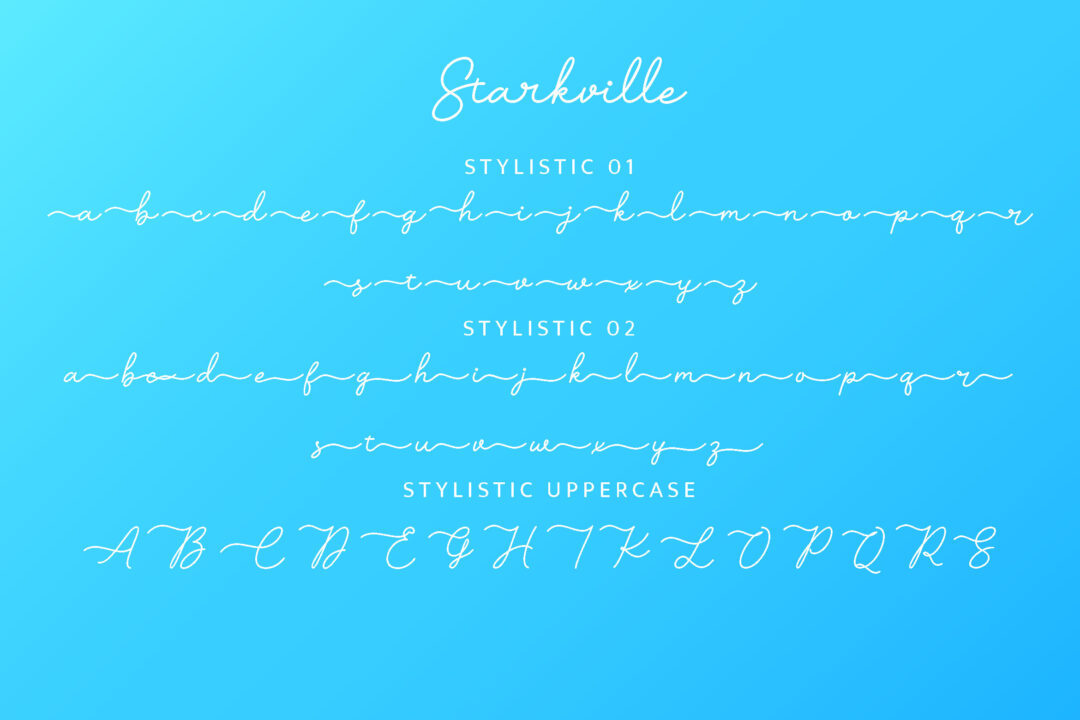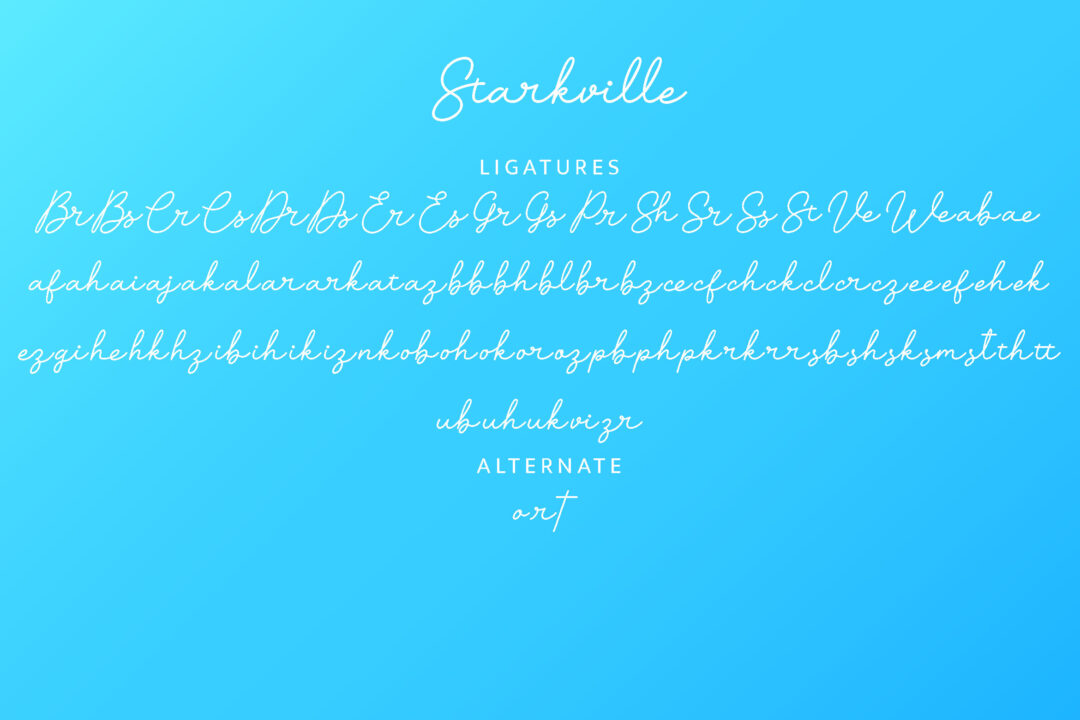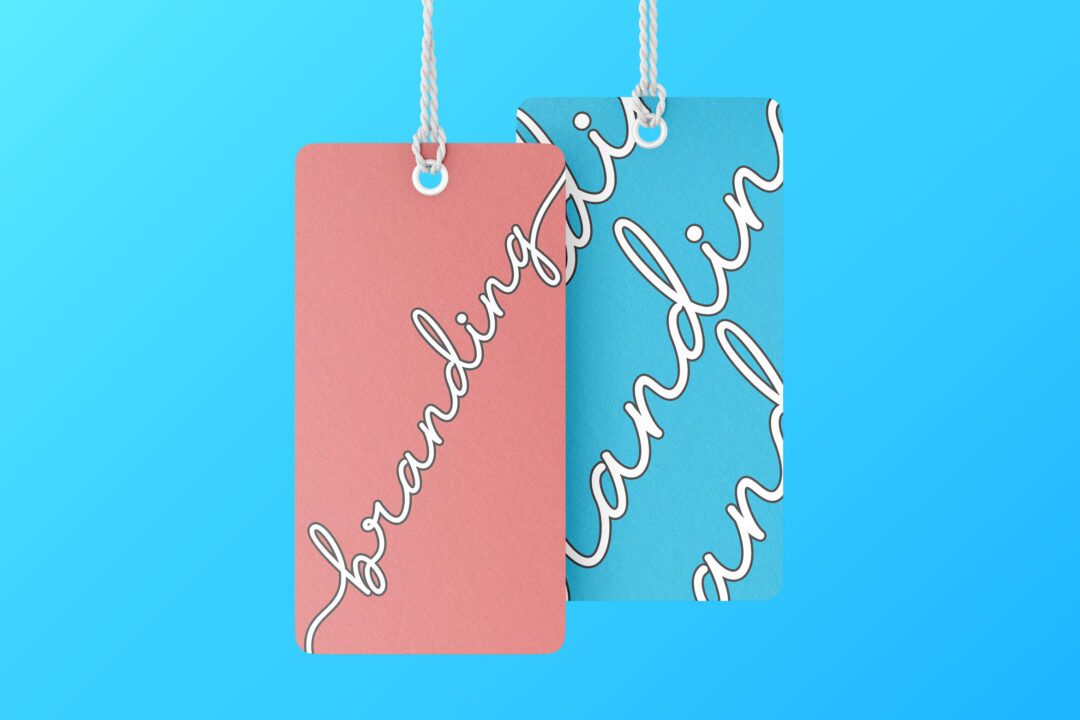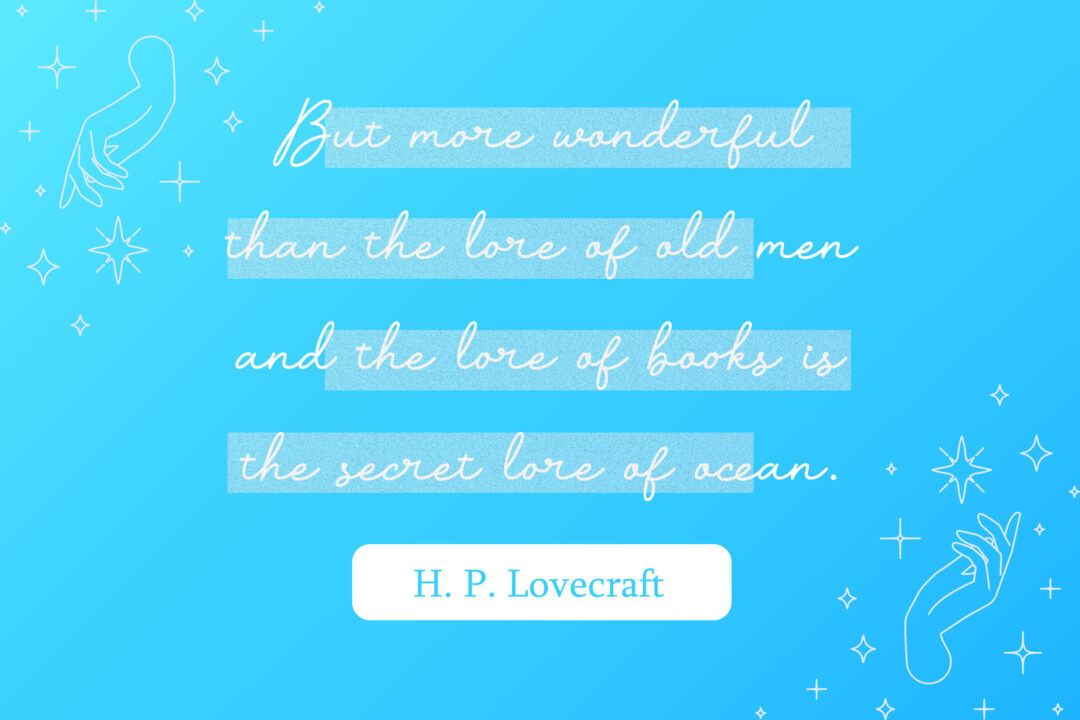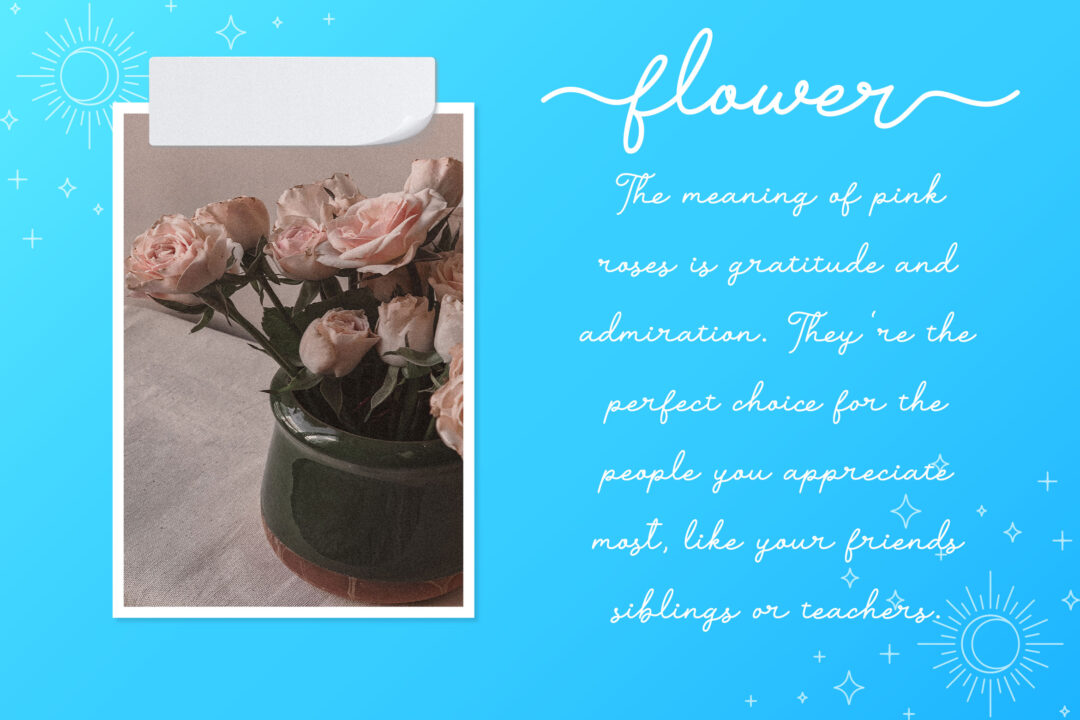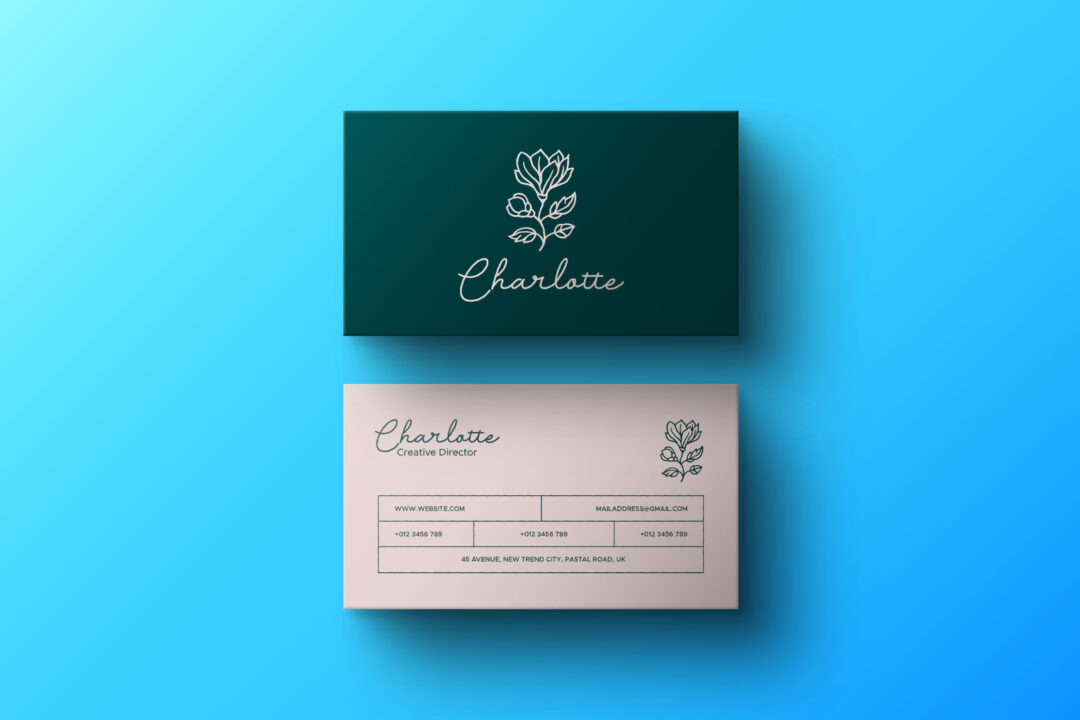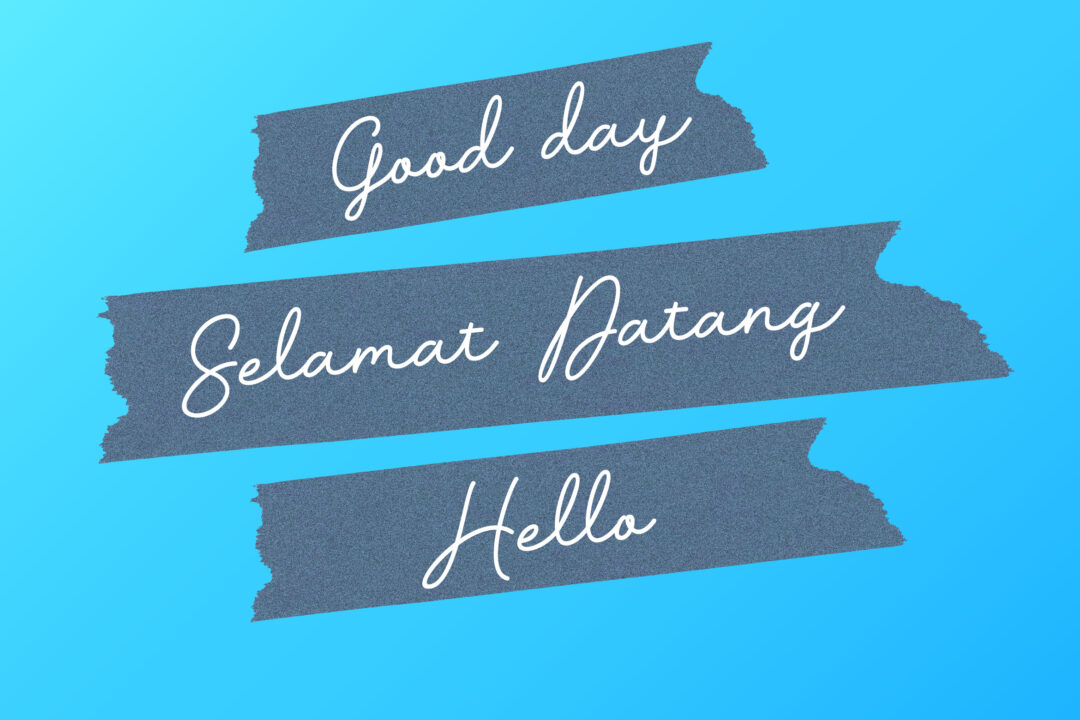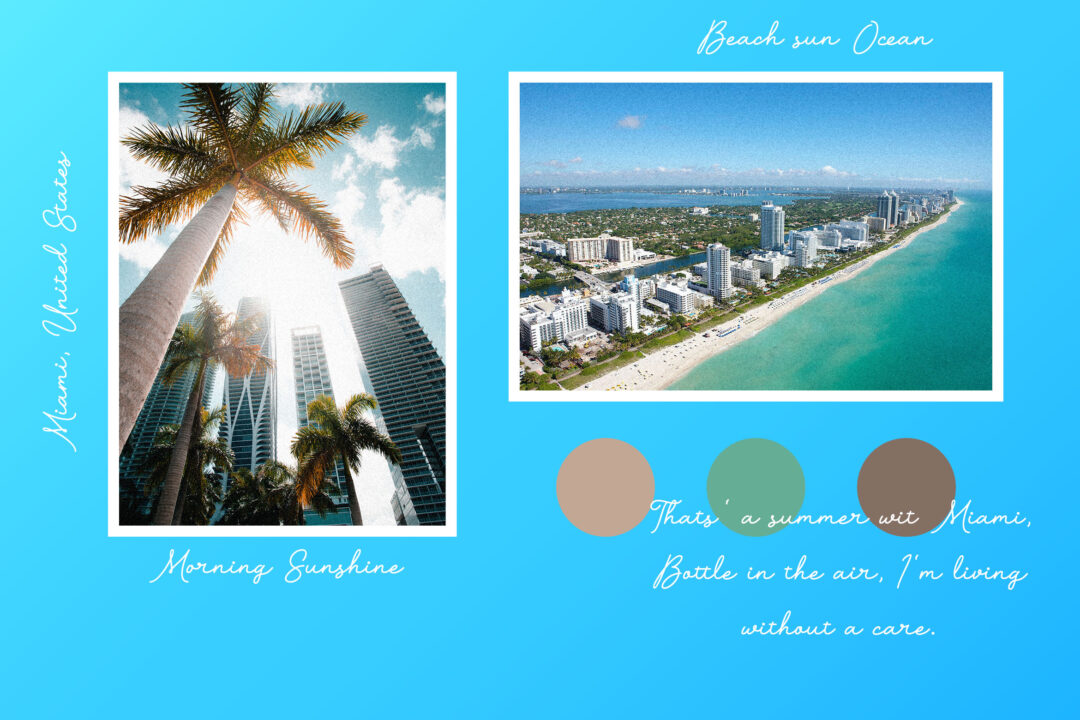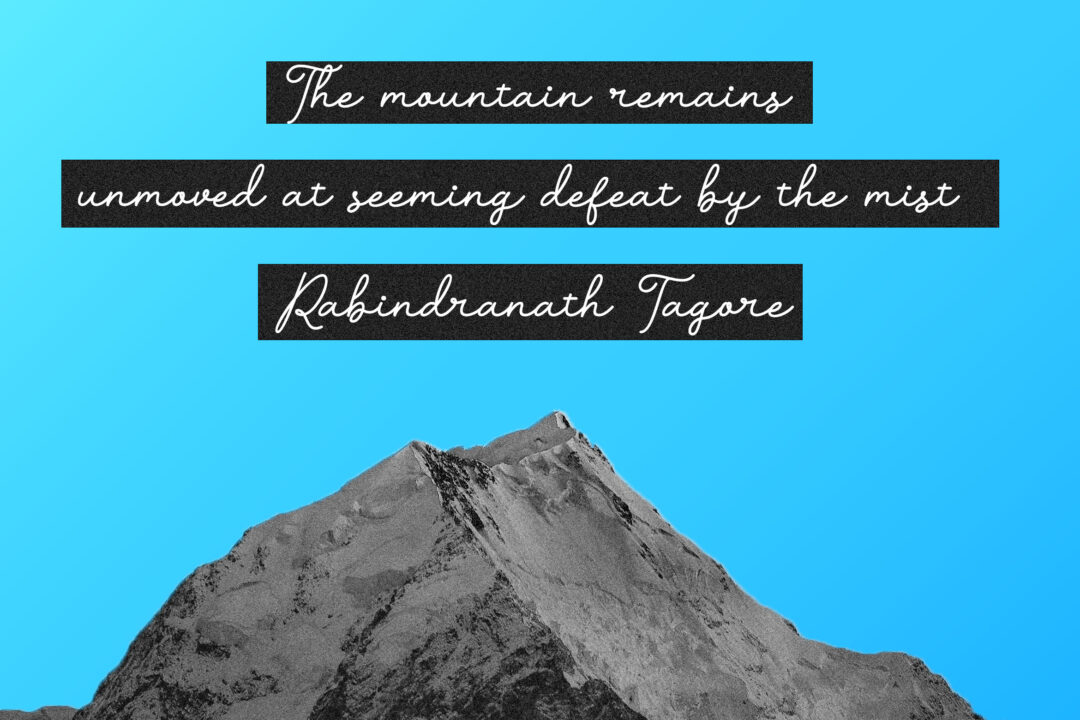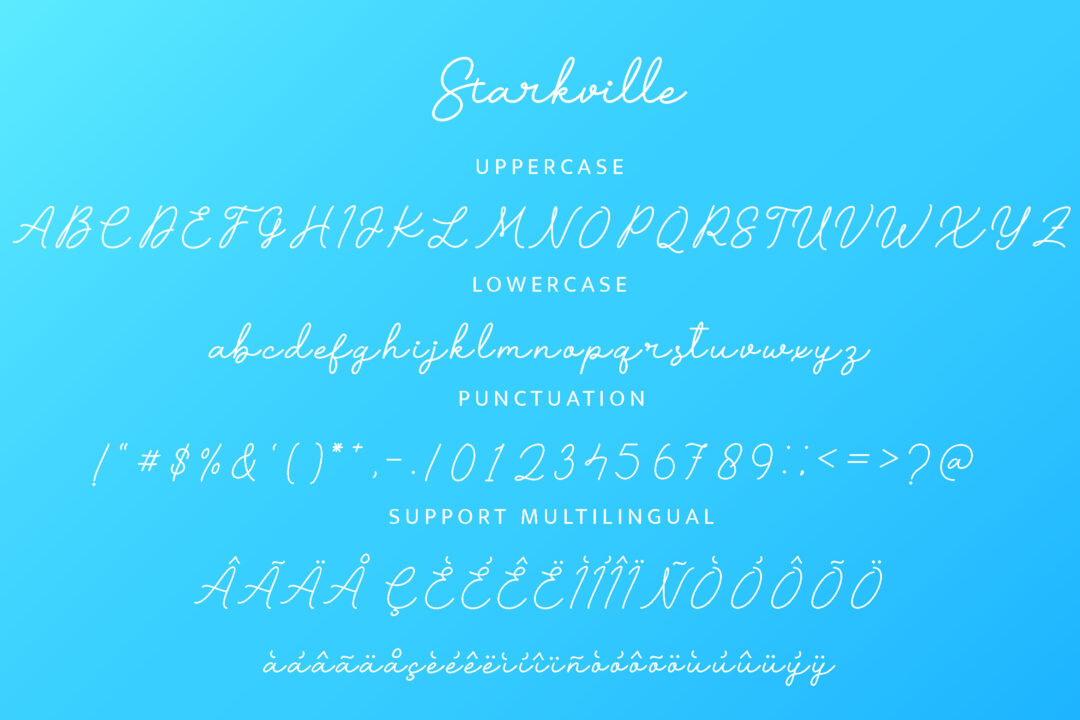
Introducing Starkville Font for those of you who are needing a touch of monoline and handmade for your designs, this font was created for you! No matter the topic, this font will be an incredibly asset to your fonts’ library, as it has the potential to elevate any creation. This font is PUA encoded which means you can access all of the glyphs and swashes with ease!
Starkville